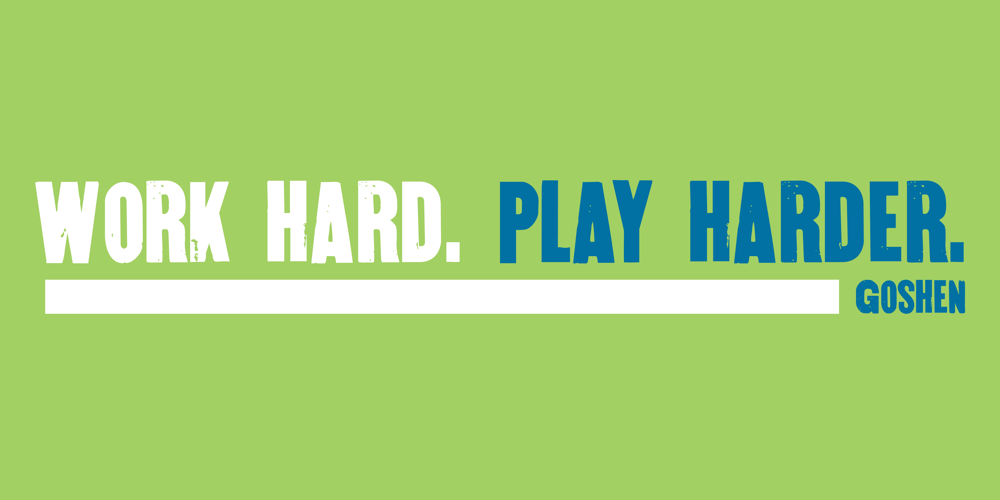
BlincType Letterpress Fontpak Font Family was designed by published by Chank. BlincType Letterpress Fontpak contains 8 styles and family package options. Add some old fashioned charm to your designs with the distressed alphabets in the new BLINCtype Letterpress Fontpak, a brand new font collection containing 8 letterpress-inspired fonts from the creative minds at Blinc Publishing in St. Paul, MN. The BLINCtype Letterpress Fontpak contains a handy concise assortment of old-school display fonts. From the old Western “WANTED” poster look of Prospect Modern, to the no-nonsense all-caps classic Goshen and its lowercase companion Gideon, these fonts are inspired by wooden letterpress blocks and other archaic technologies. It’s like having your own letterpress print studio! Except it’s all instantly downloadable right now as easy-to-use fonts! Designers love working with the Cheltenham-esque Gomorrah and its grittier, grungier counterpart, Sodom. The bouncy Golgotha has a rough and tumble readiness that exudes a hand-made charm, while Hamilton Offset has a cryptic, experimental look and feel that gives the impression of double-vision. You also get the newest member of the Blinc font family, Player Piano, which was based on punch-cut stencil letters on an old player piano paper song roll. Purchase the BLINCtype Letterpress Fontpak today and you’ll be able to download and start using these 8 great fonts right away! The BLINCtype Letterpress Fontpak contains the fonts: Gideon, Golgotha, Gomorrah, Goshen, Hamilton Offset, Player Piano, Prospect Modern and Sodom.